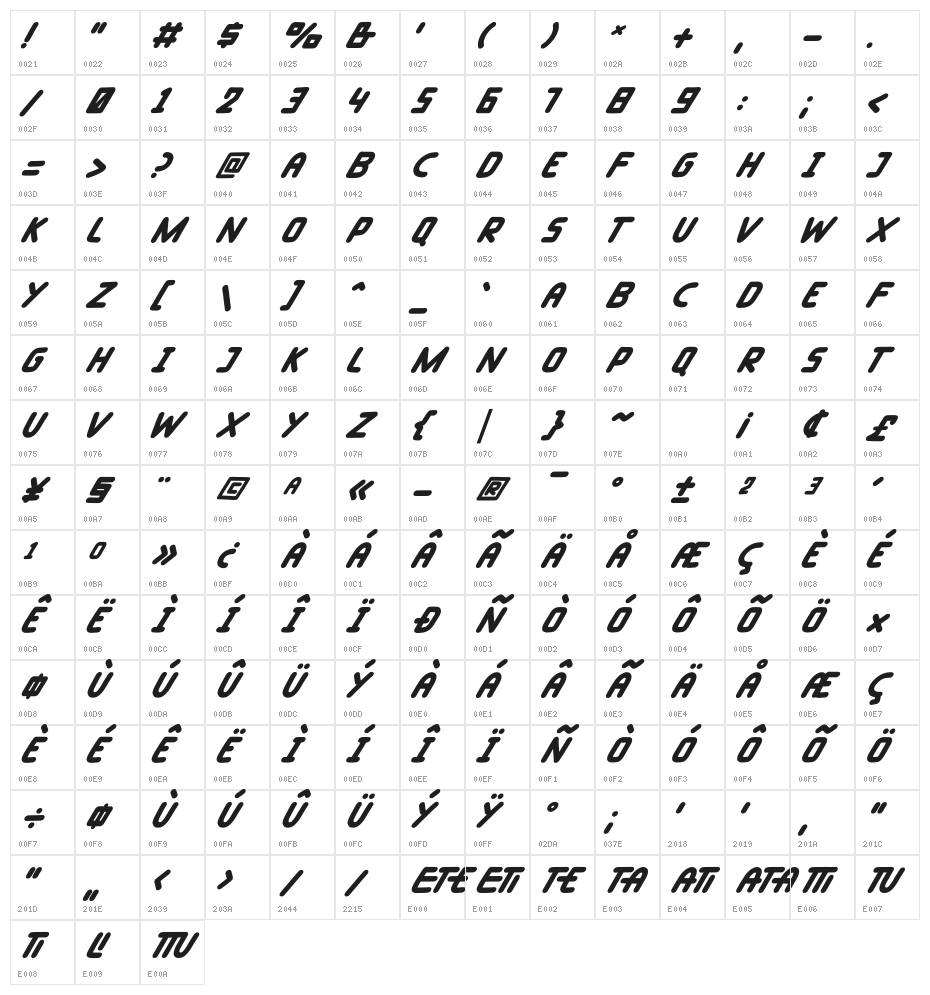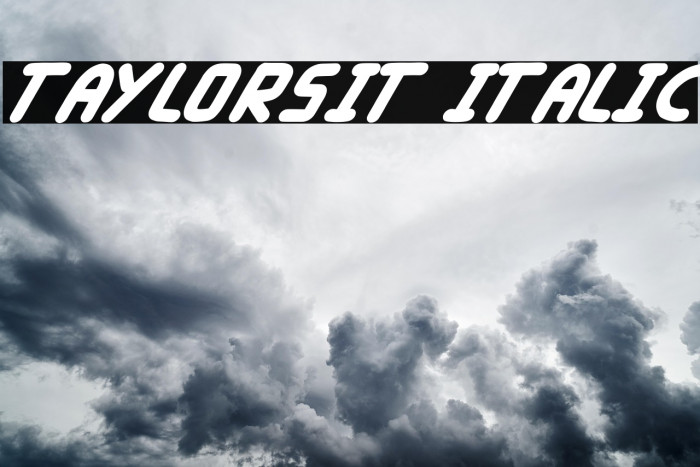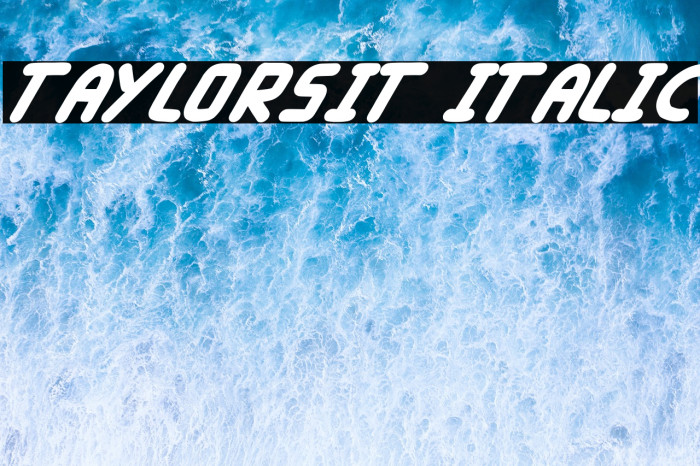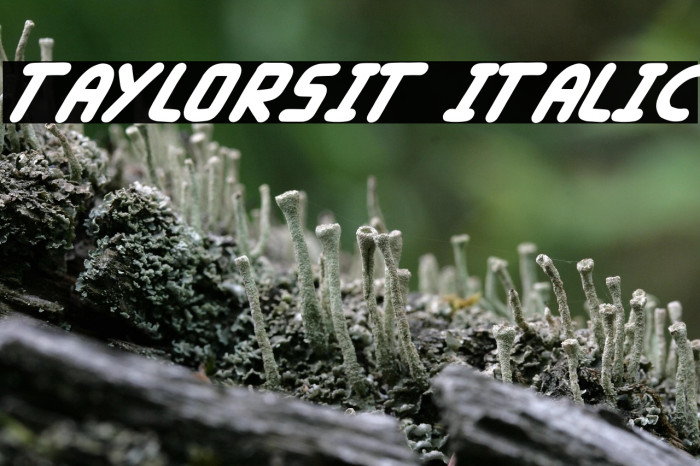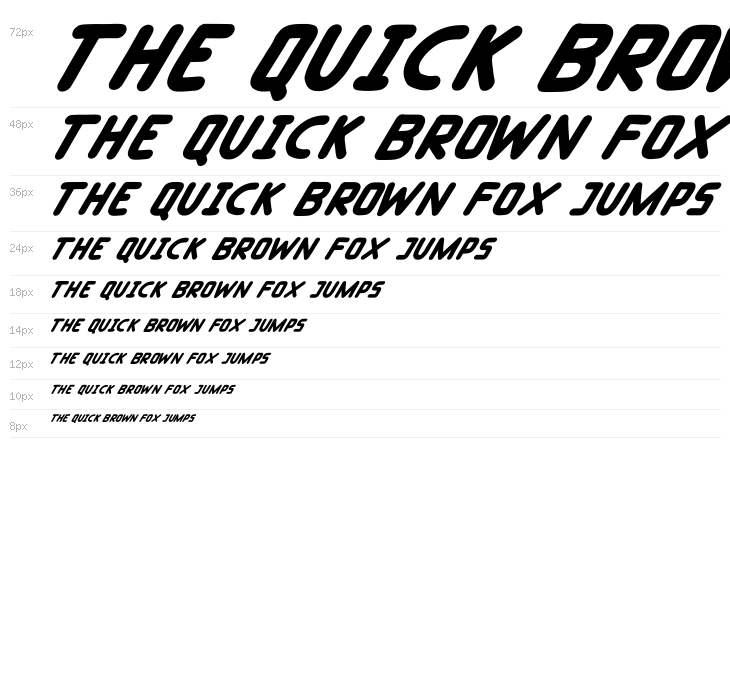
Taylorsit Italic Font
Taylorsit Italic Description
This font features a bold, italicized style with a modern and dynamic appearance. The characters are slightly slanted, giving a sense of motion and energy. The strokes are thick and consistent, providing a strong visual impact. The font maintains a uniform width across all characters, ensuring readability and balance. The character spacing is tight, which enhances the cohesive look of the text. This font is well-suited for projects that require a bold statement, such as branding, headlines, or advertising materials. Its distinctive style makes it ideal for capturing attention and conveying a sense of modernity and confidence.